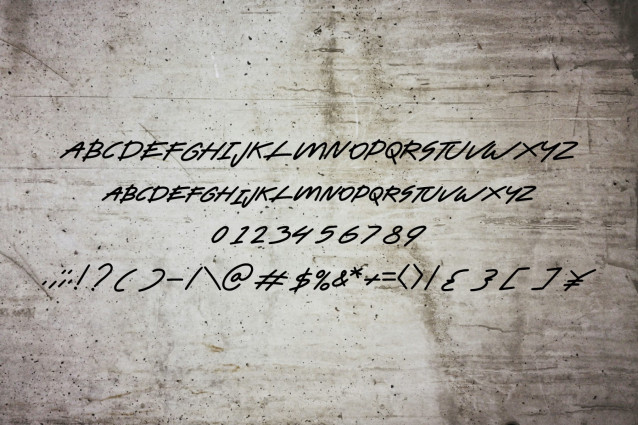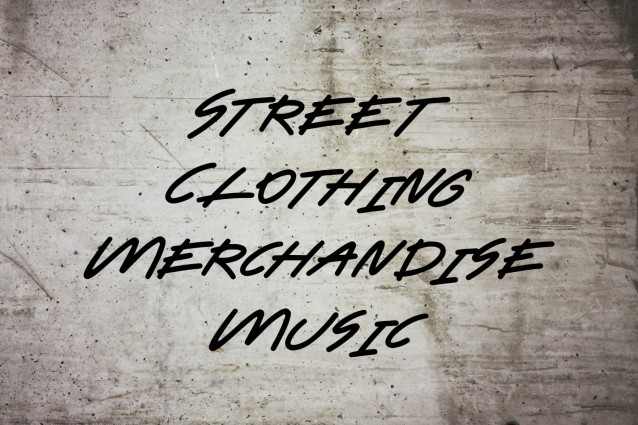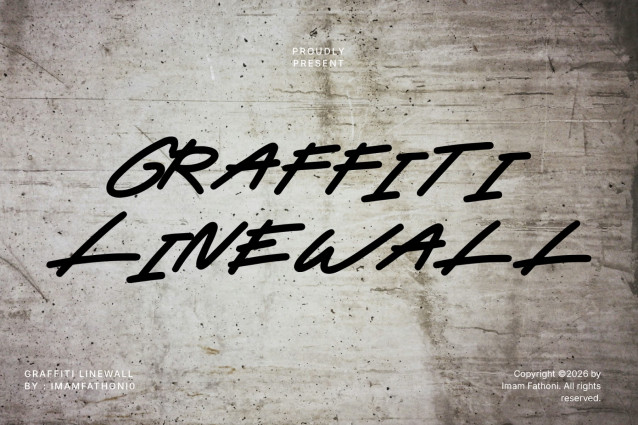
Graffiti LineWall is a simple, raw display font styled after quick wall graffiti tags, with loose, spray-painted linework that feels wild and unpolished. Its rebellious edge captures the energy of street culture, making it a strong fit for youth-driven, urban brands.
Perfect For
Streetwear and apparel branding, skateboard graphics, t-shirt and merchandise designs, urban event posters, hip-hop and punk band merch, sticker packs, graffiti-style logos, sneaker and skate shop signage, social media promotional graphics, youth culture campaigns.